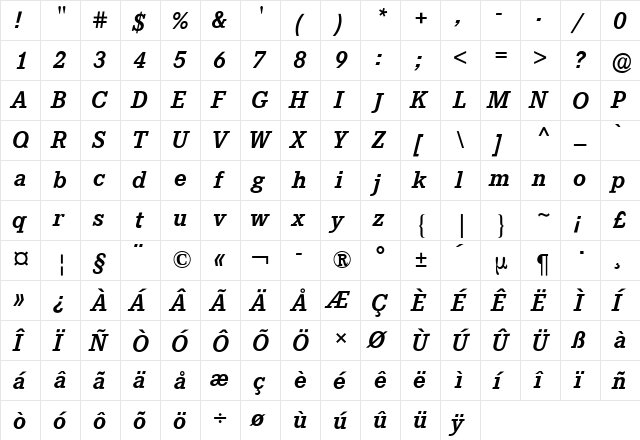
Corporate E BQ Bold Italic Font Preview
Design Context for Corporate E BQ Typeface
Corporate E BQ offers clean, dependable letterforms without strong stylistic allegiance, making it a practical choice for designers who need flexibility. The slanted form adds forward momentum and visual energy. The heavy weight commands attention and anchors typographic hierarchies.
Pro Tip: Try Corporate E BQ for annotation and caption copy alongside an upright companion — the contrast in angle creates a dynamic but ordered typographic system.